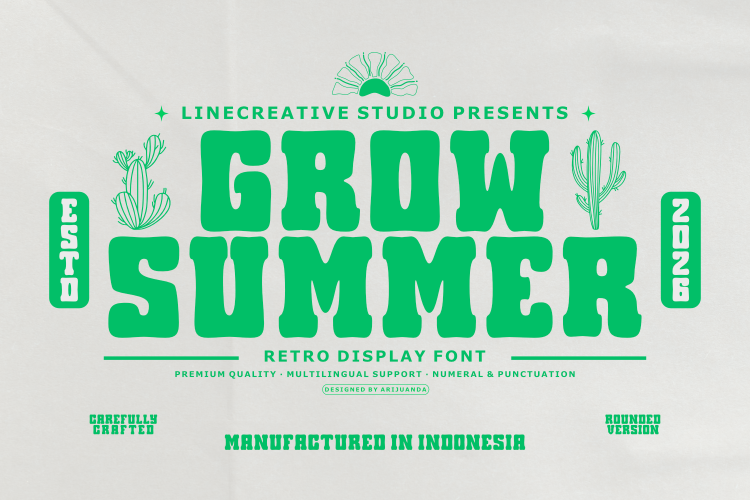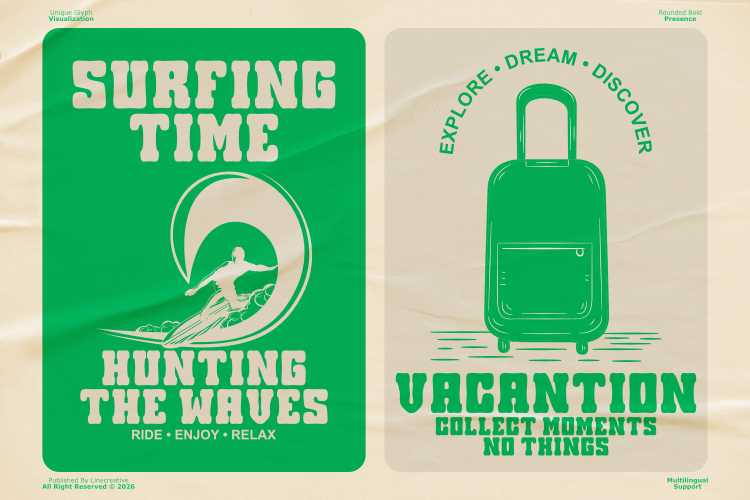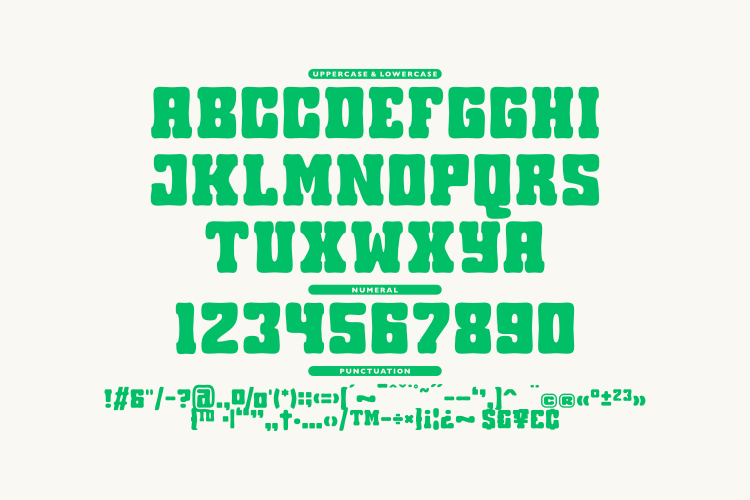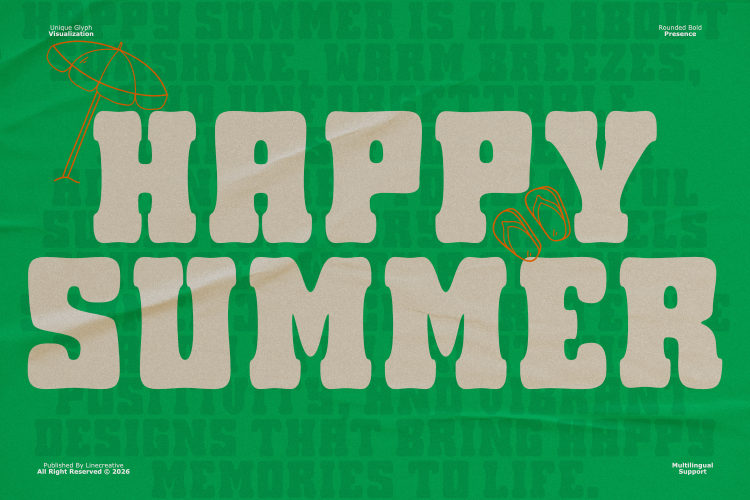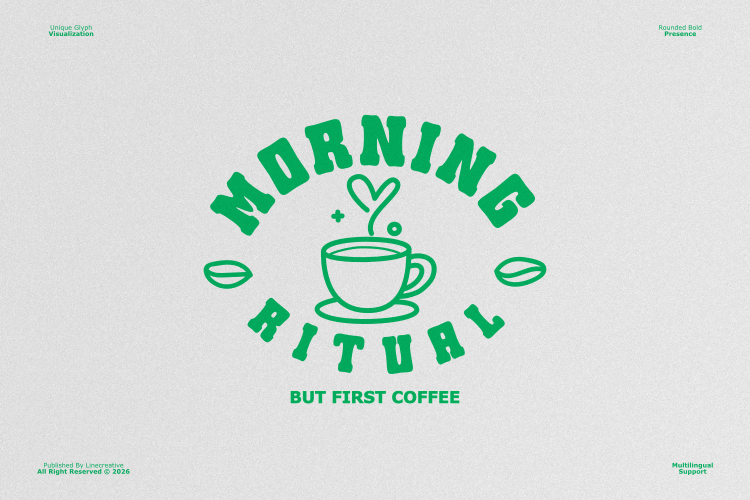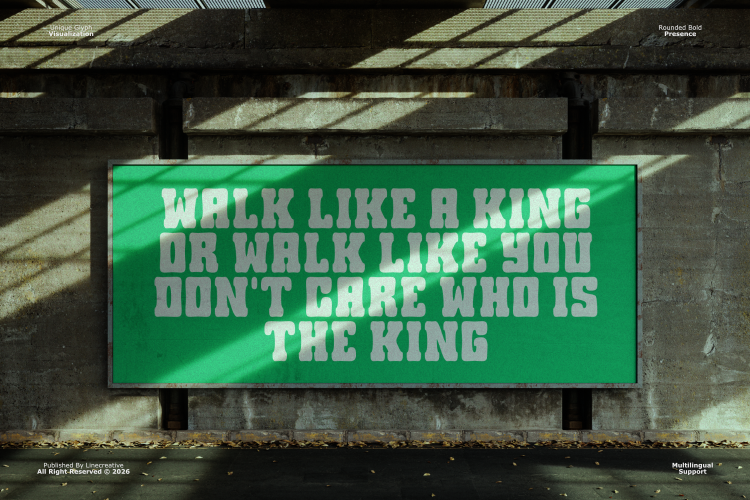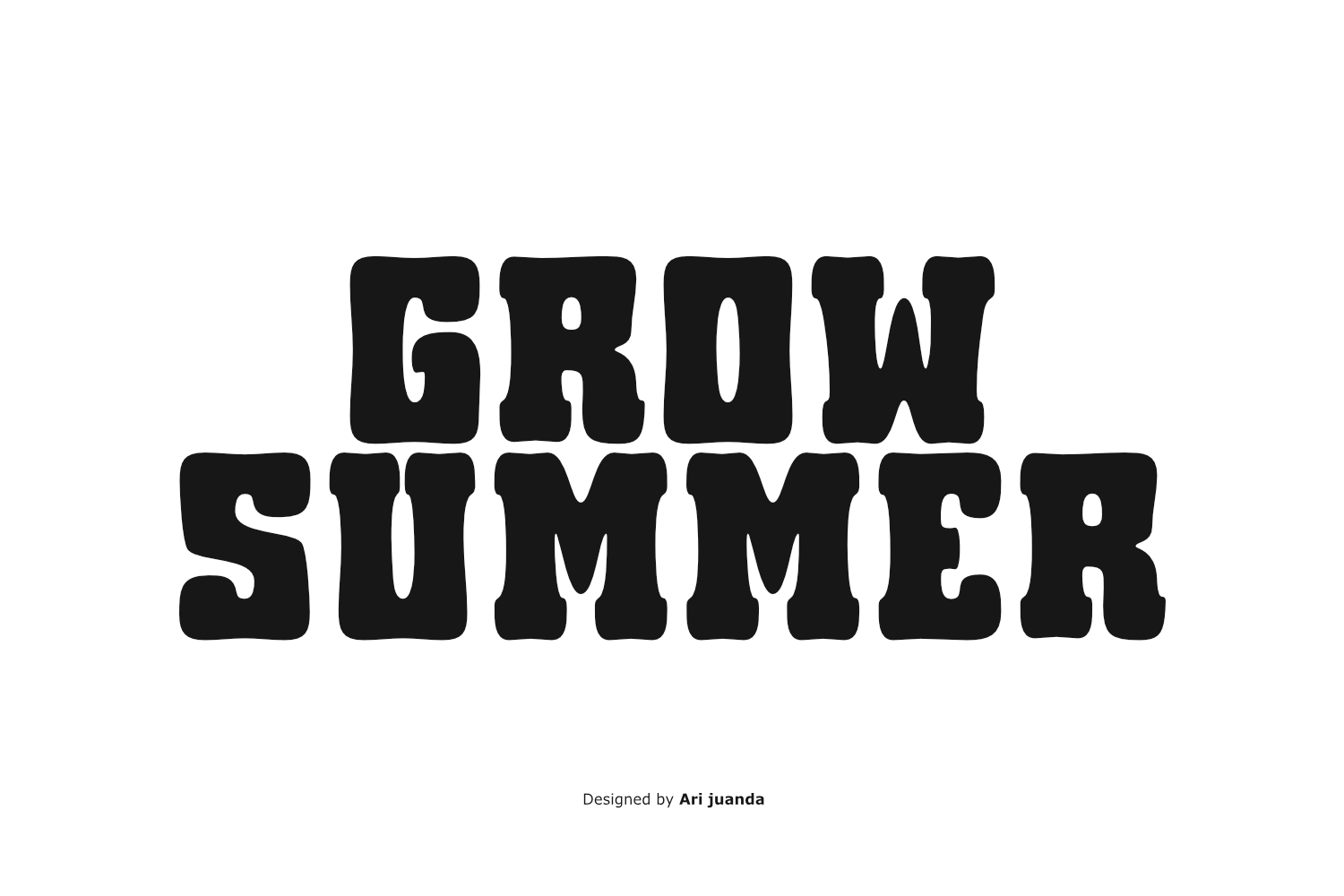
Grow Summer – Retro Display Font
Bring sunshine, adventure, and vintage vibes into your next creative project with Grow Summer, a bold retro display font inspired by endless beach days, road trips, surf culture, and nostalgic summer memories.
Designed with chunky rounded letterforms and a soft vintage personality, Grow Summer instantly creates eye-catching headlines while maintaining excellent readability. Every character is crafted to deliver a cheerful, friendly, and timeless aesthetic that feels right at home on posters, logos, packaging, apparel, and branding.
Whether you’re designing for a tropical café, beach festival, travel brand, coffee shop, or retro merchandise, Grow Summer helps your typography stand out with confidence and warmth.
Perfect For
• Summer Posters
• Beach Branding
• Surf Designs
• Travel Campaigns
• Coffee Shops
• Restaurant Branding
• Packaging
• Apparel & T-Shirts
• Tote Bags
• Stickers
• Signage
• Social Media Graphics
• Vintage Logos
• Product Labels
• Merchandise
• Book Covers
• Event Promotions
Features
• Uppercase & Lowercase
• Numerals & Punctuation
• Multilingual Support
• Rounded Bold Style
• High Readability
• Vintage Summer Character
• Easy to Mix & Match
• Perfect for Large Headlines
Grow Summer is the perfect choice when your design needs a bold retro statement with warm summer energy.